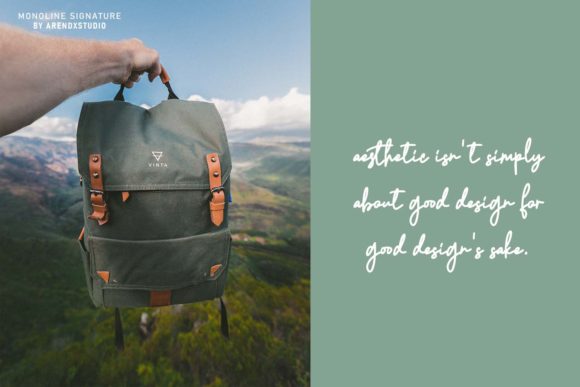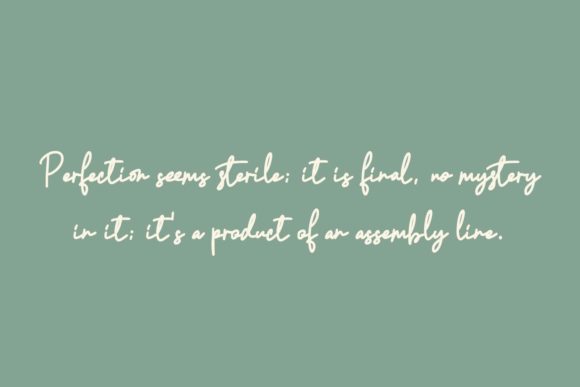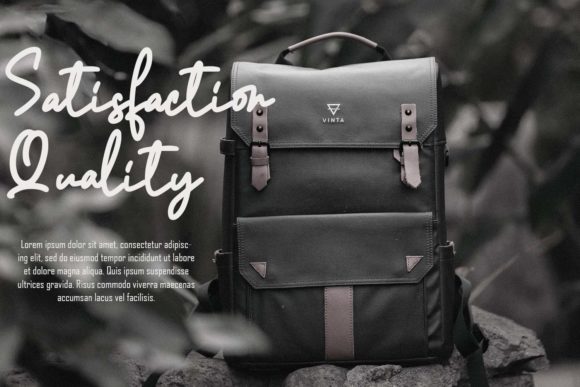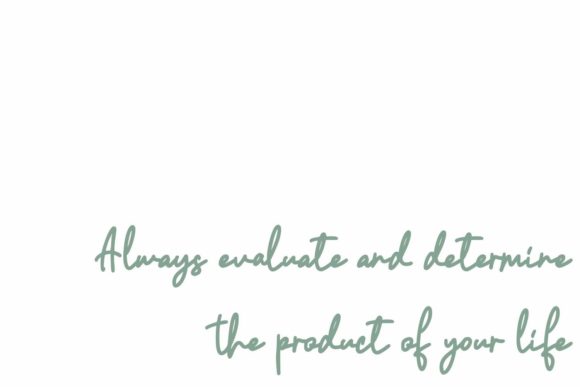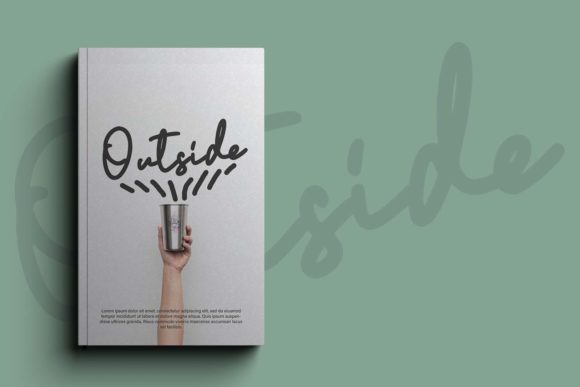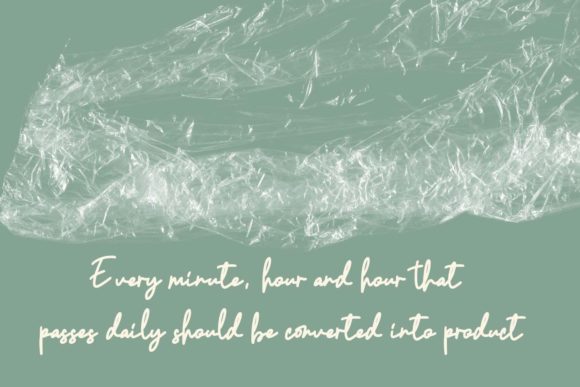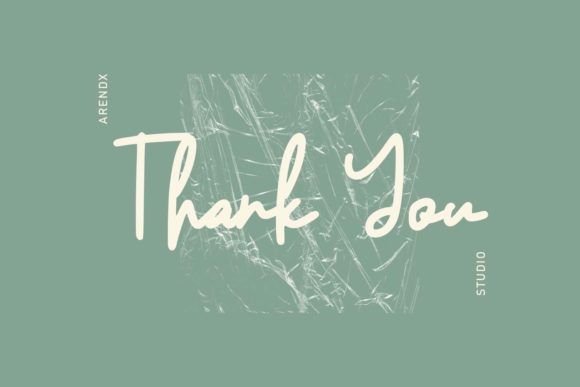
Nutricional Font
About Nutricional Font
Nutricional is a cute and casual handwritten font with an incredibly friendly feel. Whether you’re looking for fonts for Instagram or calligraphy scripts for DIY projects, this font will turn any creative idea into a true piece of art!